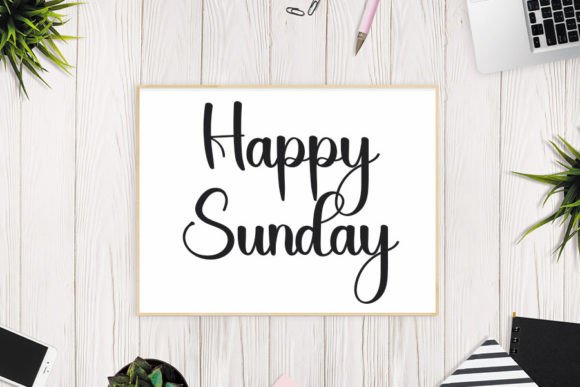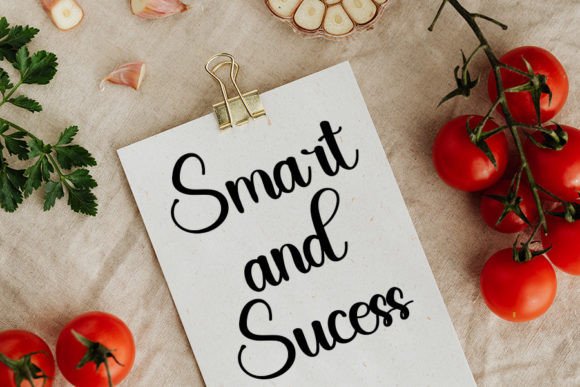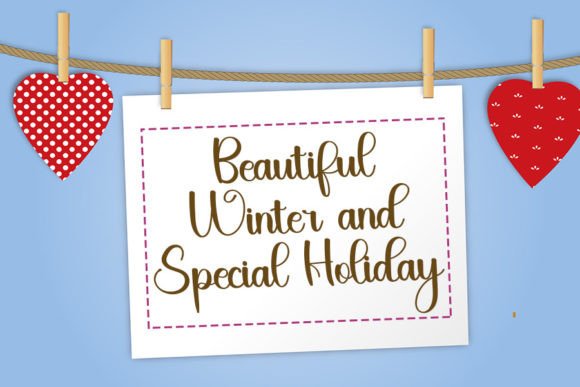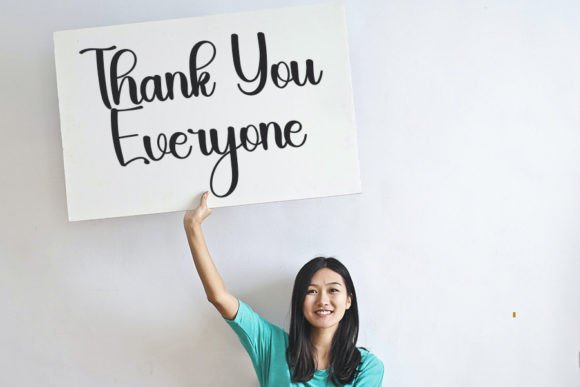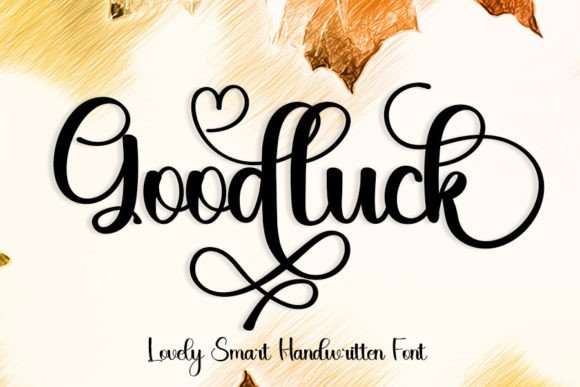
Introducing Goodluck Font: Elevate Your Designs with Timeless Elegance
In the world of typography, a font can make or break a design. For designers and crafters seeking to add a touch of sophistication and style to their projects, the Goodluck Font is an exceptional choice. This beautifully crafted handwritten font boasts a contemporary atmosphere, impeccable form, and a balanced, varied aesthetic that is sure to enhance the beauty of any project.
Inspired by Timeless Classic Calligraphy
The Goodluck Font draws inspiration from the classic calligraphy of yesteryear, bringing a sense of tradition and elegance to modern designs. With its roots in timeless typography, this font manages to strike a perfect balance between classic charm and contemporary flair. Whether you’re working on a branding project, a wedding invitation, or a packaging design, Goodluck Font offers the versatility and sophistication you need to make your work stand out.
Key Features of Goodluck Font
- PUA Encoded: Goodluck Font is PUA (Private Use Area) encoded, which means you can easily access all the amazing glyphs and ligatures. This feature allows for greater flexibility and creativity in your designs, making it simple to incorporate the perfect typographic elements to elevate your work.
- Balanced and Varied: The font’s balanced and varied design ensures that it can be used across a range of projects, from elegant and formal to more casual and playful. This versatility makes Goodluck Font an excellent addition to any designer’s toolkit.
- Stylish Handwritten Aesthetic: With its stylish handwritten appearance, Goodluck Font adds a personal touch to any project. The font’s contemporary atmosphere and impeccable form make it perfect for designers looking to create unique and eye-catching designs.
- Impeccable Form: The font’s impeccable form ensures that it remains clear and legible, even at smaller sizes. This makes it ideal for use in a variety of applications, from body text to headings and titles.
Use Cases for Goodluck Font
The Goodluck Font is incredibly versatile and can be used in a wide range of design projects, including:
- Branding and Logo Design: Create a lasting impression with a custom logo or brand identity that incorporates the elegant and sophisticated Goodluck Font.
- Wedding and Event Invitations: Add a touch of romance and elegance to your wedding or event invitations with this beautiful handwritten font.
- Packaging Design: Elevate your product packaging with a stylish and eye-catching design that showcases the Goodluck Font.
- Digital and Print Media: Use Goodluck Font in your digital and print media, such as brochures, flyers, and social media graphics, to add a touch of sophistication and style.
- Unique and Eye-Catching: Goodluck Font offers a unique and eye-catching aesthetic that will help your designs stand out from the crowd.
- Highly Versatile: The font’s versatility makes it suitable for use in a wide range of design projects, from formal and elegant to casual and playful.
In conclusion, the Goodluck Font is an exceptional choice for designers and crafters seeking to add a touch of elegance and sophistication to their projects. With its timeless classic calligraphy inspiration, stylish handwritten aesthetic, and highly versatile design, this font is sure to become a staple in your design toolkit.